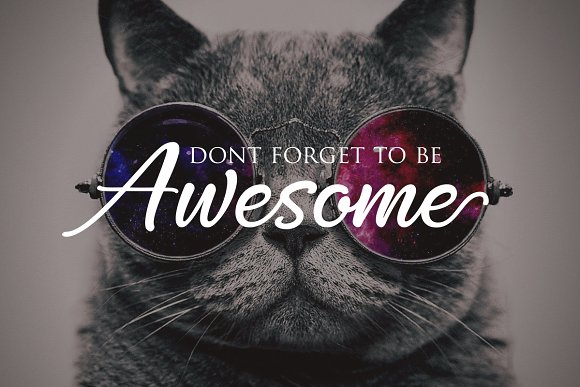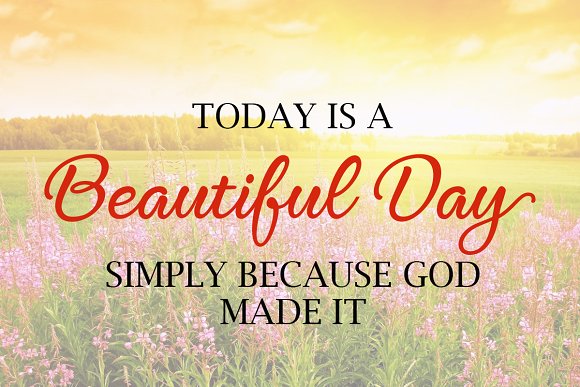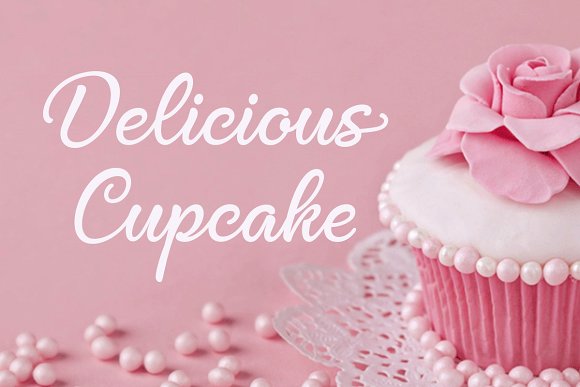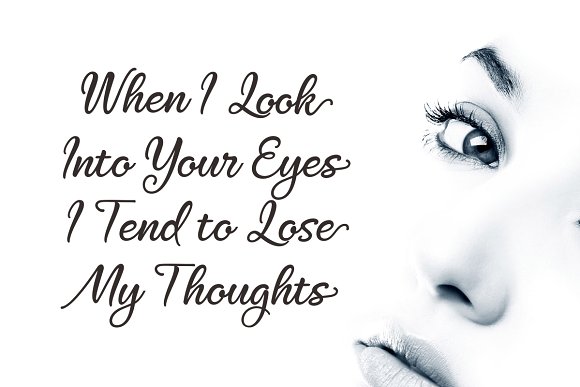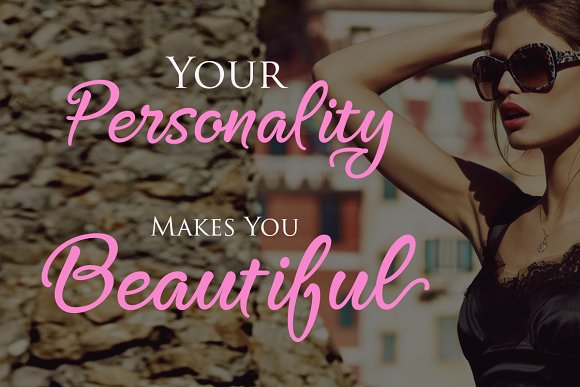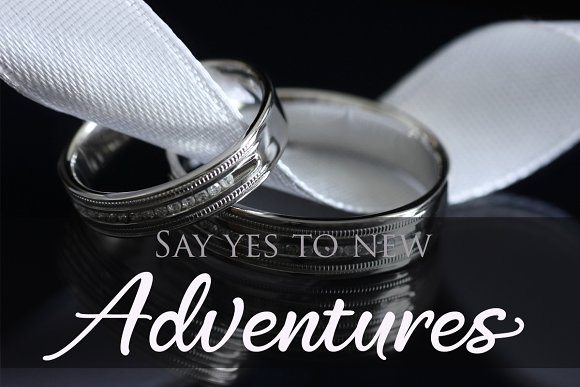
The Bellagio Font: A Modern Handwritten Script to Elevate Your Designs
I’ll never forget the struggle I faced while working on a wedding invitation project. My client wanted a font that was elegant, yet playful, and I was determined to find the perfect one. After hours of scrolling through font libraries, I stumbled upon the Bellagio font. Created by Byuly Ayika, this modern handwritten script font has since become a staple in my design toolkit. In this article, I’ll share my experience with Bellagio, its features, and how to make the most of its OpenType font features.
An Honest Review of Bellagio Font
- ✨ Elegant and Playful: Bellagio strikes the perfect balance between elegance and playfulness, making it suitable for a wide range of design projects.
- ✅ OpenType Font Features: The font comes with many OpenType font features, including alternate characters, which allow for endless creativity.
- 💫 Modern Aesthetic: Bellagio’s modern aesthetic makes it perfect for designs that require a fresh and contemporary look.
While Bellagio is an excellent font, there are a few quirks to be aware of:
- ⚠️ Limited Use in Body Text: Due to its script nature, Bellagio may not be the best choice for lengthy body text. It’s better suited for headings, titles, or short paragraphs.
- 🤔 Some Characters May Require Adjustment: Depending on the design, some characters may require manual adjustment to ensure optimal spacing and readability.
Byuly Ayika, the creator of Bellagio, is a talented font designer with a passion for crafting beautiful, modern fonts. Inspired by the elegance of handwritten scripts, Ayika designed Bellagio to be a versatile font that can be used in a variety of design projects. With its modern aesthetic and OpenType font features, Bellagio has become a popular choice among designers and crafters.
Q: What type of designs is Bellagio best suited for?
Bellagio is a versatile font that can be used in a wide range of design projects, including wedding invitations, branding, packaging, and more.
Q: Does Bellagio support OpenType features?
Yes, Bellagio comes with many OpenType font features, including alternate characters, stylistic alternates, and glyphs.